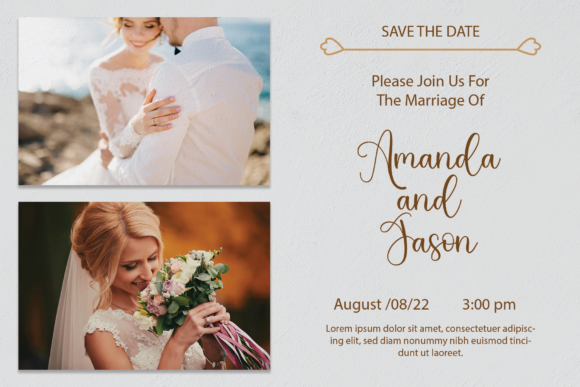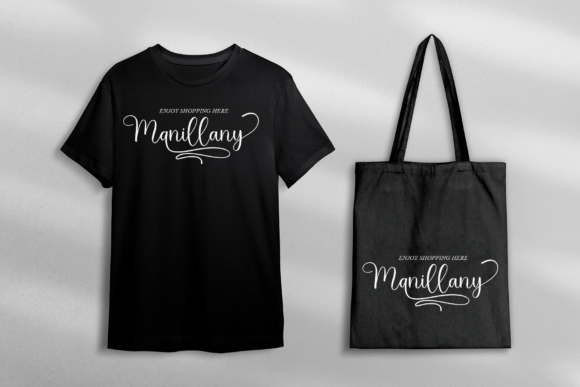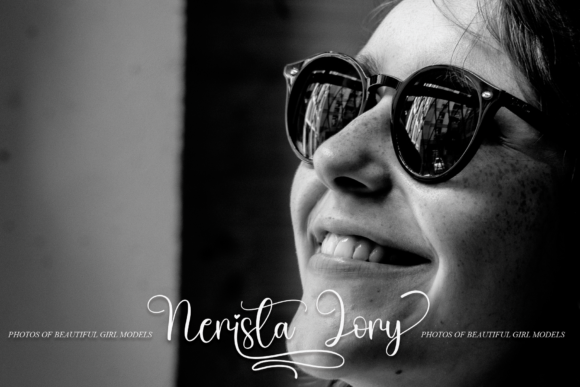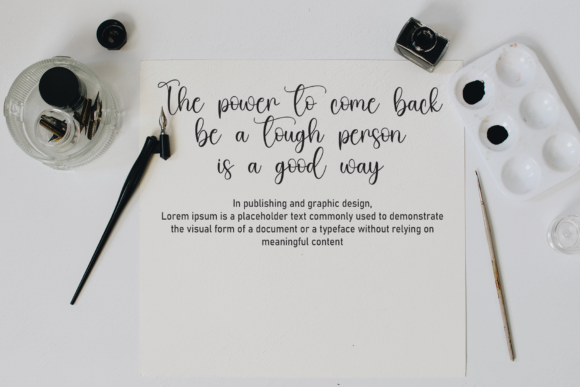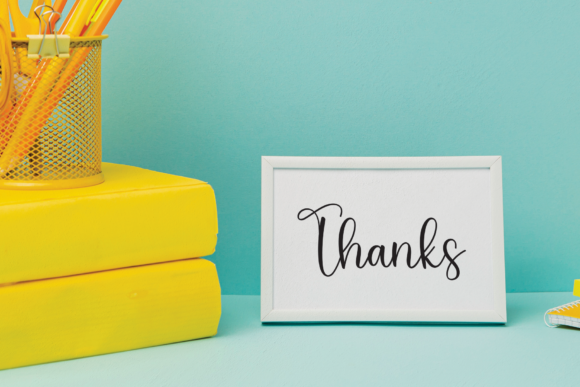
Introducing Butterfly Font: Elevate Your Designs with Elegance and Class
Are you looking for a font that adds a touch of sophistication and refinement to your designs? Look no further than Butterfly Font, a lovely and delicate script font that exudes elegance and class. Crafted with precision and attention to detail, Butterfly Font is the perfect choice for designers and crafters seeking a beautiful and refreshing look for their projects.
The Beauty of Butterfly Font
Butterfly Font is a stunning script font that features intricate and flowing lines, reminiscent of a butterfly’s delicate wings. Its elegant and refined appearance makes it ideal for a wide range of design applications, from wedding invitations and stationery to branding and advertising materials. The font’s unique and eye-catching design ensures that your work will stand out from the crowd and leave a lasting impression on your audience.
Key Features of Butterfly Font
- Elegant and Refined Design: Butterfly Font boasts a sophisticated and luxurious appearance, perfect for high-end designs and projects that require a touch of class.
- Delicate and Intricate Lines: The font’s flowing lines and intricate details evoke the beauty and fragility of a butterfly’s wings, adding a touch of whimsy and wonder to your designs.
- Versatile and Adaptable: Butterfly Font is suitable for a wide range of design applications, from digital and print materials to branding and advertising.
- Easy to Read and Understand: Despite its intricate design, Butterfly Font remains clear and legible, ensuring that your message is conveyed effectively and efficiently.
Uses of Butterfly Font
Butterfly Font is a versatile and adaptable font that can be used in a variety of design applications, including:
- Wedding Invitations and Stationery: Add a touch of elegance and sophistication to your wedding invitations, stationery, and other paper goods.
- Branding and Advertising: Use Butterfly Font to create eye-catching and memorable brand identities, logos, and advertising materials.
- Digital and Print Materials: Enhance your digital and print materials, such as brochures, flyers, and social media graphics, with the font’s elegant and refined design.
- Crafting and DIY Projects: Add a personal touch to your crafting and DIY projects, such as handmade cards, gift tags, and other paper crafts.
Tips for Using Butterfly Font
To get the most out of Butterfly Font, consider the following tips:
- Pair with Simple Fonts: Combine Butterfly Font with simple and clean fonts to create visual interest and contrast.
- Use for Headings and Titles: Take advantage of the font’s elegant design by using it for headings and titles, where it can make a lasting impression.
- Experiment with Colors and Textures: Add depth and interest to your designs by experimenting with different colors and textures.
In conclusion, Butterfly Font is a beautiful and elegant script font that is sure to elevate your designs and add a touch of sophistication and refinement. With its delicate and intricate lines, versatile and adaptable design, and ease of use, Butterfly Font is the perfect choice for designers and crafters seeking a fresh and inspiring look for their projects. So why wait? Download Butterfly Font today and take your designs to new heights!